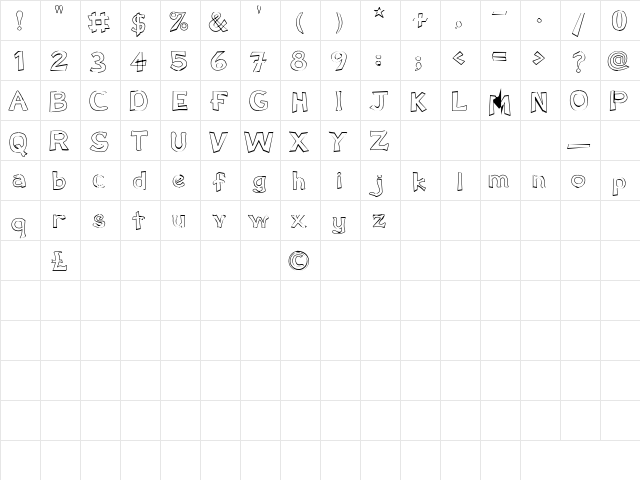
Wither Outline 1 Regular
Design Context for Wither Outline 1 Typeface
Wither Outline 1 brings ornamental detail and strong personality to headlines and identities, where visual impact matters more than quiet functionality.
Font Pairing: Pair with a clean neutral sans-serif for body copy to let Wither Outline 1's character lead without overwhelming the composition.
Pro Tip: Treat Wither Outline 1 as the centrepiece of your typographic hierarchy. One strong heading set in a decorative face can carry an entire layout.